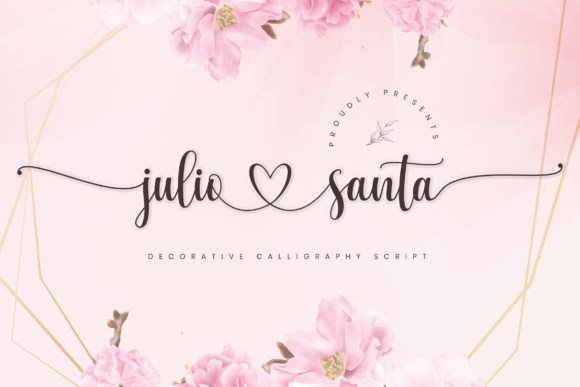
Introducing Julio Santa, a font of unparalleled elegance, crafted to ignite the spark of romance in your creative endeavors. With its graceful strokes and captivating curves, Julio Santa dances across the baseline, adding a touch of timeless charm to every project it graces.
Picture the allure of wedding invitations adorned with Julio Santa's delicate embrace, carrying tales of love and commitment. Envision the beauty of place cards, each adorned with the distinctive script of Julio Santa, guiding guests to their seats at the grand celebration of hearts intertwined.
Julio Santa's versatility extends beyond the realm of weddings, embracing a symphony of creative expressions. Its enchanting letters lend themselves effortlessly to branding, logos, social media graphics, and countless other design projects. Whether you seek to capture the magic of a love story or infuse your creations with a touch of elegance, Julio Santa stands as your unwavering companion.
Unleash the power of Julio Santa, a font woven from passion and artistry. Experience the joy of crafting designs that resonate with grace, elegance, and enduring beauty. With Julio Santa by your side, your creative dreams shall blossom into a vibrant tapestry of art.
**Why Choose Julio Santa?**
* **Mesmerizing Appeal:** Its enchanting curves and delicate strokes captivate the senses, adding a layer of sophistication to any design.
* **Unrivaled Versatility:** From wedding stationery to branding projects, Julio Santa effortlessly adapts to a wide range of creative endeavors.
* **Effortless Elegance:** With Julio Santa, elegance becomes effortless. Its graceful lines and timeless charm elevate your designs to new heights of beauty.
**Embark on a Journey of Creative Grandeur with Julio Santa**
Julio Santa awaits you, eager to transform your creative visions into masterpieces of art. Its enchanting aura will ignite your imagination, guiding you towards a realm of boundless possibilities. Embrace Julio Santa and witness the birth of designs that captivate hearts and leave an enduring legacy of beauty.